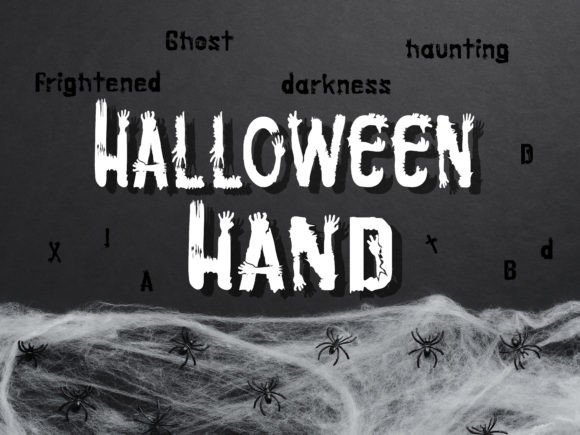
Embracing the Spooky Spirit with Halloween Hands Font
As the leaves change colors and the nights grow darker, I start to crave the thrill of Halloween. I love brainstorming spooky design ideas and experimenting with eerie typography. One year, I stumbled upon the perfect font to capture the essence of the season – the Halloween Hands Font.
This creepy display font is a masterclass in spooky whimsy, making it a must-have for designers looking to create eye-catching Halloween-themed designs. With its bold, hand-drawn style, the Halloween Hands Font adds a touch of macabre charm to any project. Whether you’re designing invitations, social media graphics, or decorations, this font is sure to cast a spell on your audience.
As a designer, you’ll appreciate the versatility and playfulness of the Halloween Hands Font, making it an invaluable addition to your typography toolkit. Get ready to unleash your creativity and conjure up some spine-tingling designs with this bewitching font!
Halloween Hands Font Key Features
- Font Family: Halloween Hands, a unique and spooky font perfect for Halloween-themed designs and projects.
- Unique Characteristics: Features creepy, hand-drawn letterforms with a mix of bold and delicate lines, creating a haunting atmosphere.
- Character Count: Includes a wide range of characters, including uppercase and lowercase letters, numbers, and punctuation marks.
Halloween Hands Font Review
As a designer, I’m always on the lookout for unique and playful fonts that can add a touch of personality to a project. The Halloween Hands Font is a quirky and charming addition to any design.
- ✨ The font’s whimsical feel and hand-drawn aesthetic is perfect for projects that need a touch of magic.
- ✨ The font’s versatility allows it to be used for a wide range of projects, from spooky Halloween designs to festive holiday cards.
- ✨ The font’s bold lines and playful curves make it easy to read and fun to work with.
- ⚠️ The font may be too playful for projects that require a more serious tone.
- ⚠️ The font’s hand-drawn aesthetic may not be suitable for projects that require precision and accuracy.
Overall, I think the Halloween Hands Font is a fun and creative addition to any design project. While it may have its limitations, its unique charm and versatility make it a great choice for designers looking to add a touch of personality to their work.
1. Use it sparingly to create a spooky or playful atmosphere.
2. Pair it with other fonts to create a unique look.
3. Experiment with different font sizes and colors to add emphasis.
The Halloween Hands Font is commonly used for:
1. Halloween party invitations and decorations.
2. Spooky-themed social media posts and graphics.
3. Children’s party invitations and printables.
Alternative Halloween Fonts for Designers
1. Creepy Carrie Font
Creepy Carrie Font is a spooky and playful font perfect for Halloween-themed designs, greeting cards, and party invitations. It features a mix of handwritten and cursive styles with a haunted twist. When to use: For designs that require a fun and eerie atmosphere.
Comparison: While Halloween Hands Font is more cursive, Creepy Carrie Font has a more playful and cartoonish feel. It’s ideal for younger audiences or for designs that need a lighter tone.